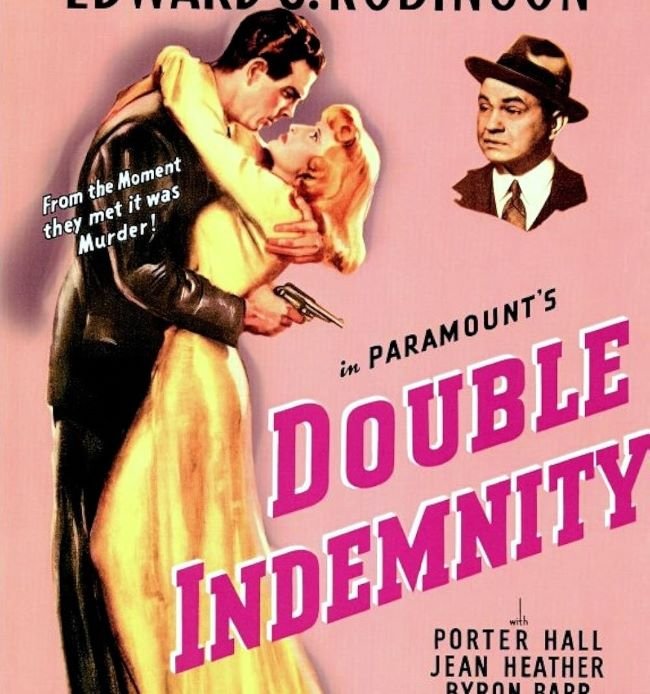
Double Indemnity font — approximated by Borghs Normal in the available alternative, drawing on the sharp-serif and gothic traditions of 1940s Hollywood title design — belongs to the typographic language of film noir at its most architecturally confident: letterforms that have the weight of institutional authority and the shadow of moral compromise, built in the era when American cinema was discovering that the most disturbing stories could be dressed in the most respectable clothes.
Billy Wilder’s 1944 Paramount film — adapted from James M. Cain’s novel by Wilder and Raymond Chandler — set the template for American noir in both its visual grammar and its typographic register, the bold, slightly theatrical display lettering announcing that what follows will be serious, adult, and will not pretend that greed and desire are things that happen to other people. The freely available Double Indemnity Font Alternative channels this shadowy, noir-golden-age authority.